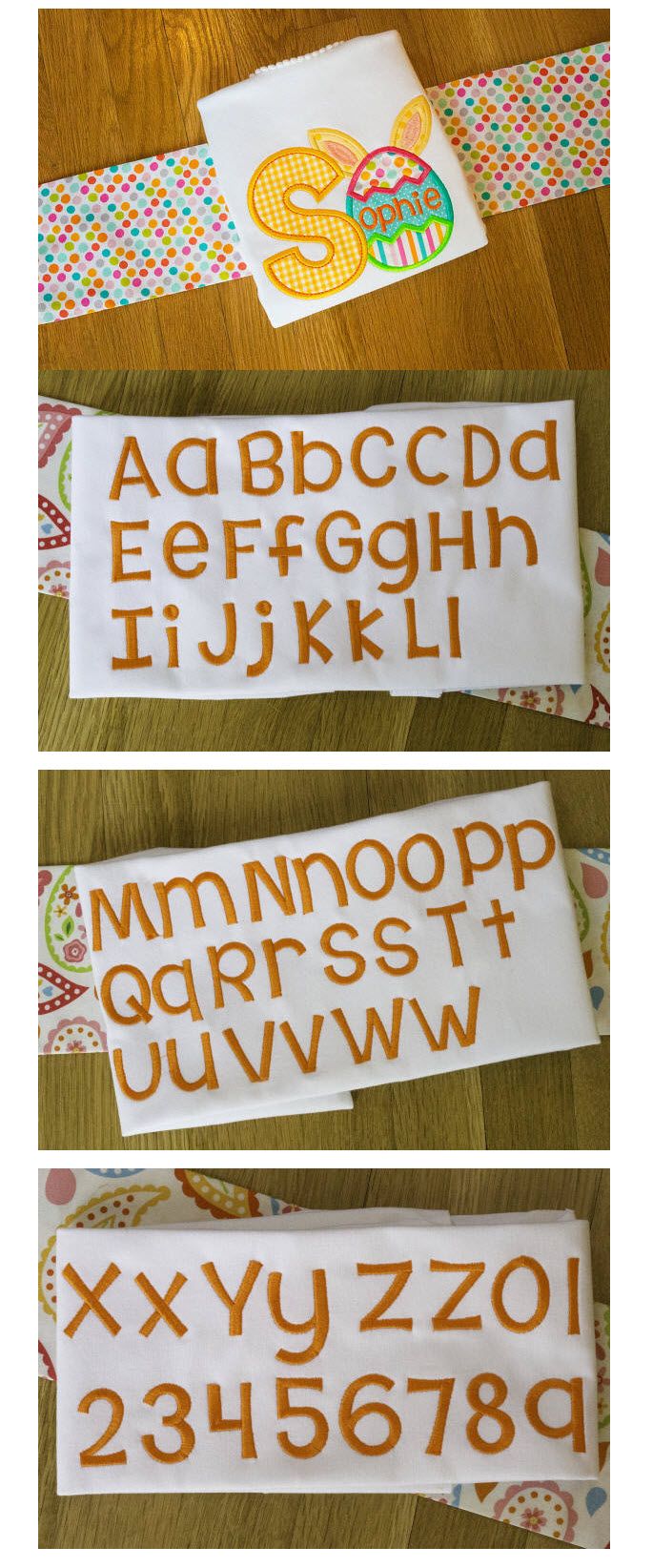
An adorable chunky font that comes in sizes as small as 1/2 inch and includes numbers and characters!! This font matches the applique letters in our Easter Bunny Egg Applique Alphabet (DBJJ653)